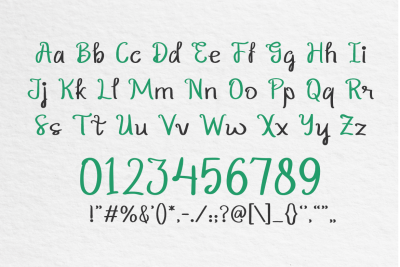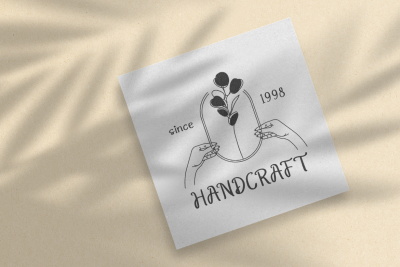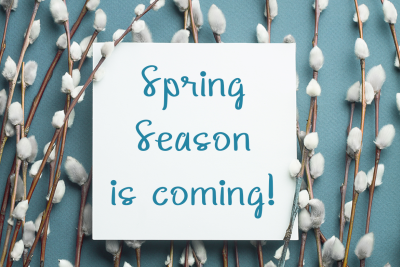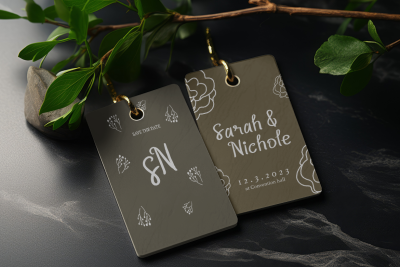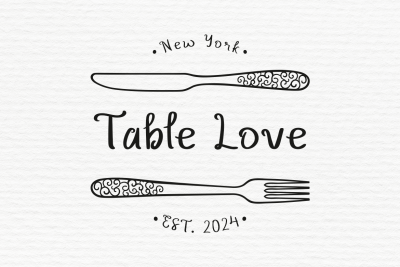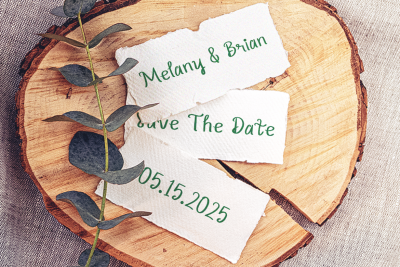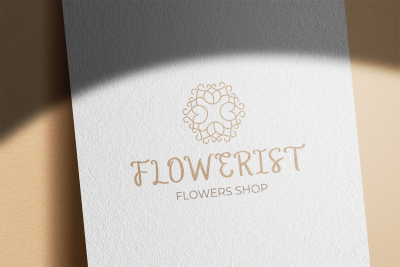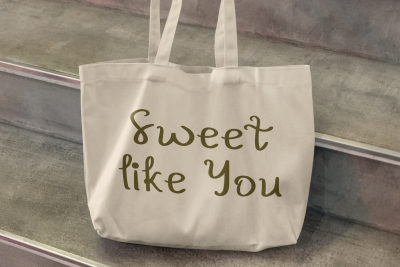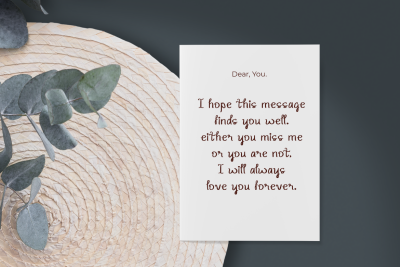
Handwriting Font SHINING is a modern, elegant, and playful script font. It brings warmth and creativity to any project. Moreover, its smooth strokes and natural curves capture the essence of handwritten text while keeping a polished look. In addition, the subtle variations in letterforms add a unique, organic touch that enhances readability and style.
What makes Handwriting Font SHINING special is its balance between sophistication and approachability. Furthermore, the carefully crafted strokes mimic natural handwriting, making every word feel personal and engaging. Whether for digital media or print, this font adapts beautifully to different styles, seamlessly blending modern aesthetics with timeless charm.
Additionally, Handwriting Font SHINING offers excellent legibility in both small and large sizes. Its gentle yet confident letterforms suit everything from branding materials to social media content. Moreover, with alternate characters and ligatures, designers can customize typography to create unique compositions that truly stand out.
Beyond its visual appeal, SHINING supports multiple languages. Consequently, it is a versatile choice for international projects. Whether adding elegance to a wedding invitation, creating a standout logo, or enhancing editorial layouts, this font gives your designs a distinct handwritten flair. As a result, it provides an artistic and expressive touch to various creative applications.
Handwriting Font SHINING Who Is it For?
Handwriting Font SHINING is perfect for creatives, business owners, and designers who seek a typeface that blends personality with professionalism. Its stylish yet informal look makes it ideal for:
- Graphic Designers: Great for logos, packaging, and branding that need a personal, hand-crafted feel.
- Social Media Influencers: Additionally, it is ideal for Instagram posts, Pinterest graphics, and YouTube thumbnails that need an eye-catching style.
- Small Business Owners: Moreover, it is perfect for product labels, business cards, and marketing materials, adding warmth and authenticity.
- Writers & Bloggers: Furthermore, it enhances book covers, blog headers, and editorial layouts, making content more visually appealing.
- Wedding & Event Planners: Likewise, it is a great choice for wedding invitations, greeting cards, and stationery with an elegant handwritten touch.
- Educators & Course Creators: In addition, it works well for worksheets, presentations, and digital content, making learning materials more inviting.
- Artists & Creatives: Moreover, it is a must-have for handmade crafts, art prints, and creative projects needing an expressive handwritten font.
With its versatility and charm, Handwriting Font SHINING is essential for those wanting a stylish, handwritten aesthetic. Whether for branding, social media, or personal projects, this font ensures every word is beautifully crafted and visually captivating.